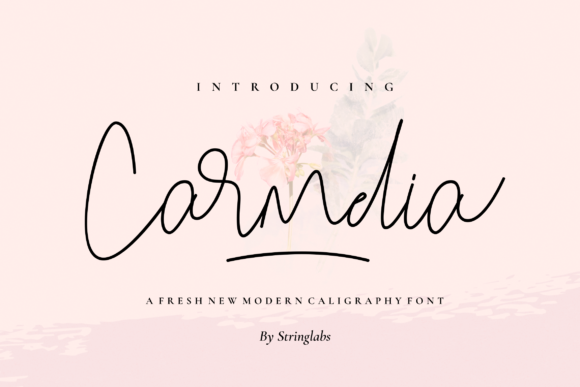
Falling in Love with Carmelia Font: A Modern Script with a Unique Twist
I’ll never forget the moment I stumbled upon Carmelia Font while working on a project for a client who wanted a elegant, yet modern script font. I had spent hours scouring the internet for the perfect font, but nothing seemed quite right. That was until I saw Carmelia – its beautiful, flowing curves and unique style immediately caught my eye. I knew right then and there that I had found the one! 💕
An Honest Review of Carmelia Font
What I Love About Carmelia ✨
• 💫 Unique and modern script style that’s perfect for making a statement
• 🎨 Beautifully designed with a wide range of OpenType features and glyphs
• 📚 Extensive language support, making it perfect for international projects
• ⚠️ Some users may find the font a bit too ornate for certain projects
• 🤔 Limited availability of certain stylistic alternates in certain platforms
4. Experiment with the font’s OpenType features, such as swashes and stylistic alternates, to add some personality to your text
5. Experiment with the font’s glyphs, swashes, and stylistic alternates to add some flair to your text
5. Experiment with the font’s OpenType features, such as ligatures and stylistic alternates
The Story Behind Carmelia Font
Carmelia Font was designed by a team of talented typographers who wanted to create a modern script font that would stand out from the crowd. Inspired by the flowing curves of handwritten calligraphy, Carmelia is the perfect blend of elegance and playfulness. Whether you’re a designer, crafter, or creative hobbyist, Carmelia is sure to become one of your go-to fonts! 🎉
Q: What type of projects is Carmelia Font best suited for?
A: Carmelia Font is perfect for a wide range of projects, including branding, packaging, signage, and more. Its modern script style makes it ideal for creative and luxury projects.